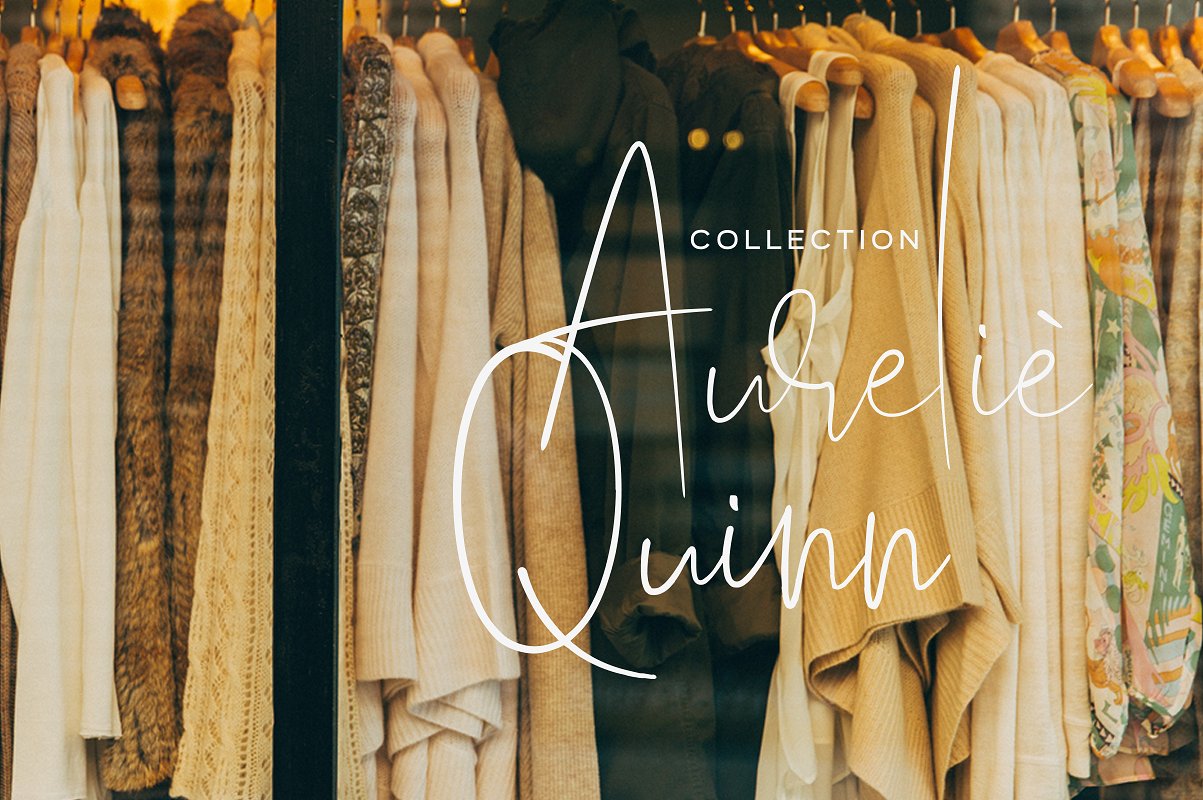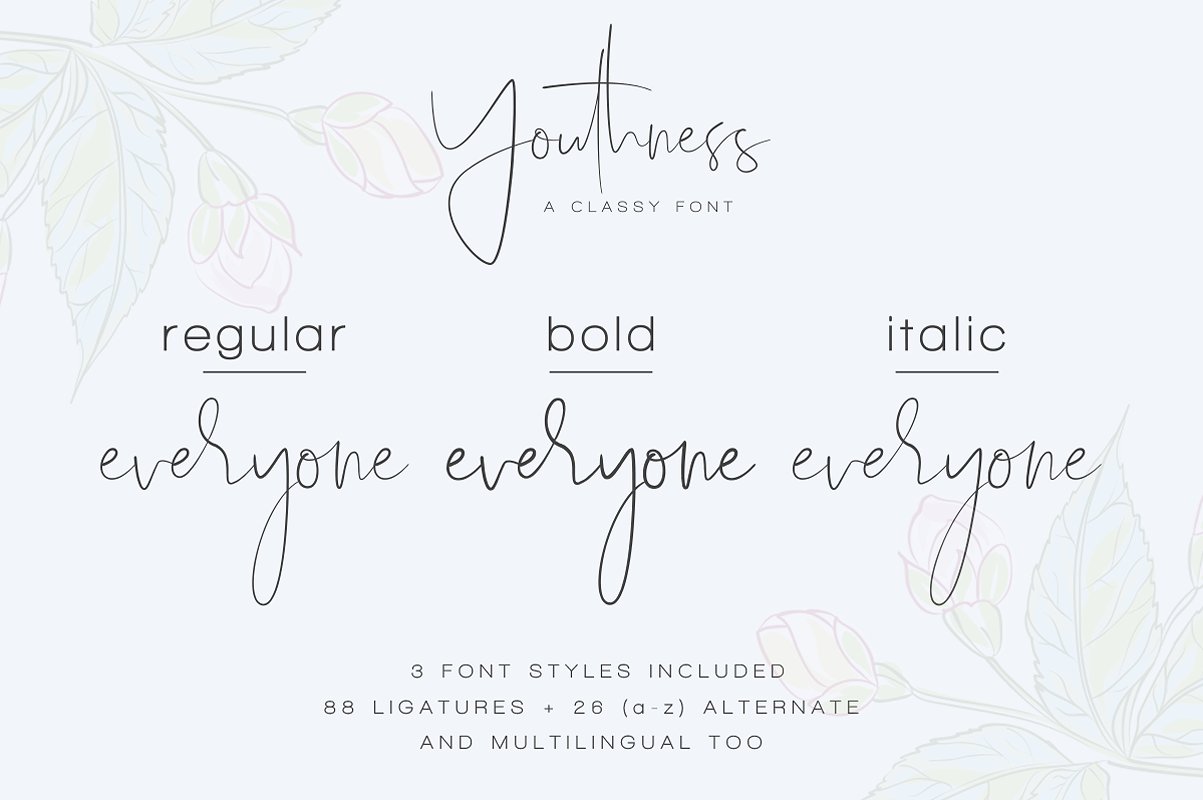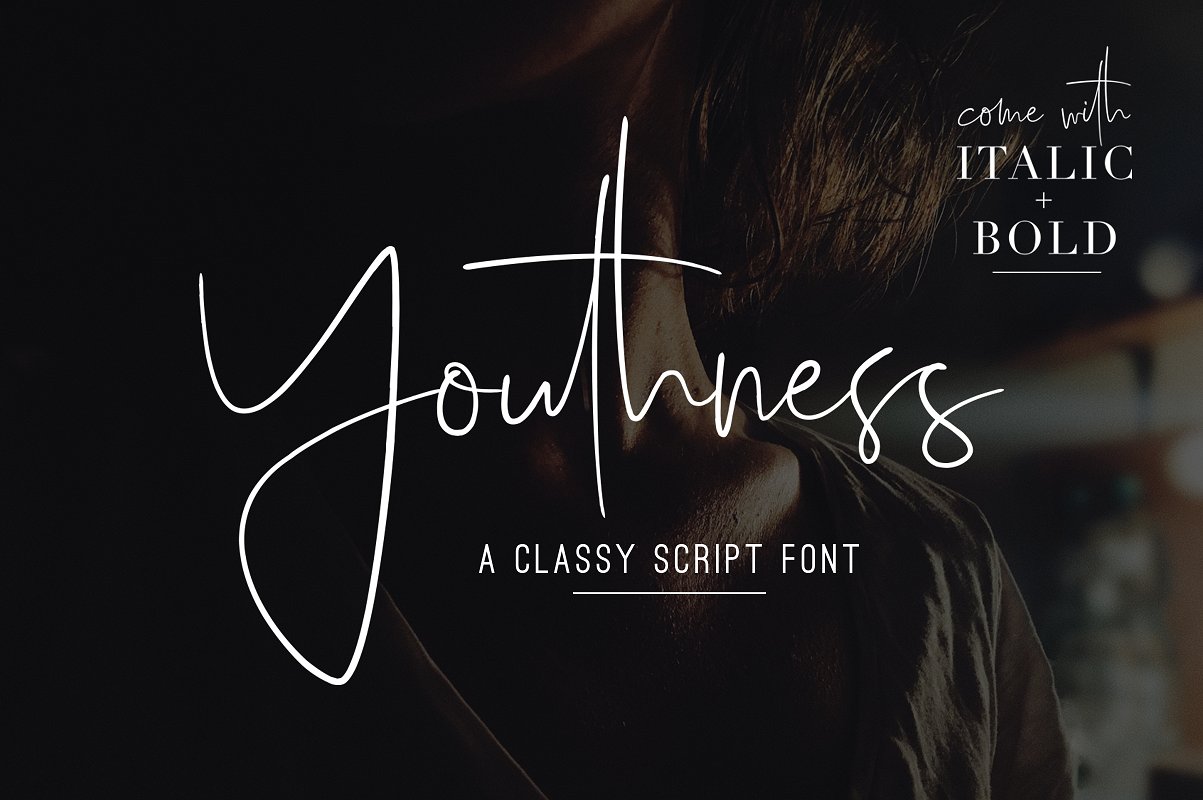
Youthness Font Family
Youthness Script is modern feminine font, every single letters have been carefully crafted to make your text looks beautiful. With modern script style this font will perfect for many different project ex: photography, watermark, quotes, blog header, poster, wedding, branding, logo, fashion, apparel, letter, invitation, stationery, etc.